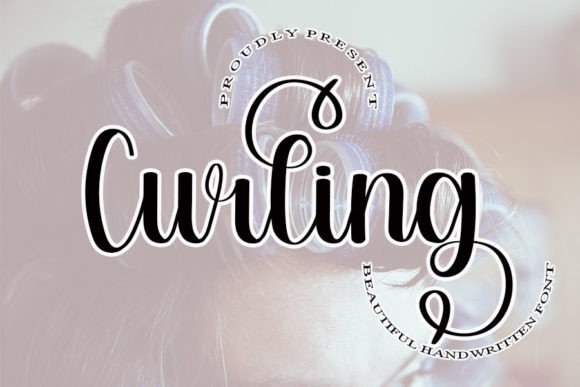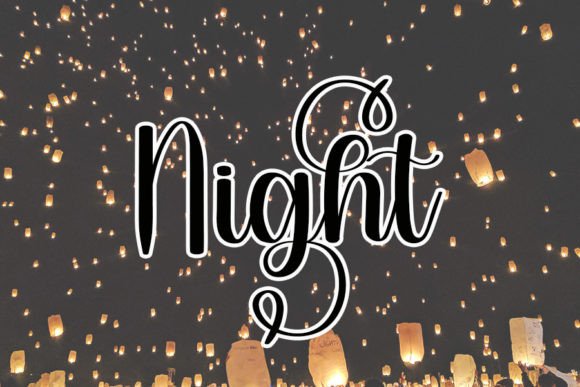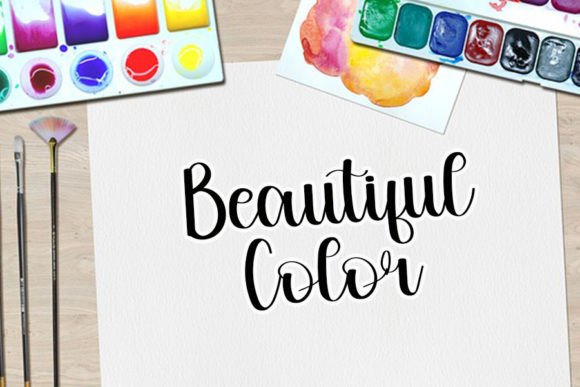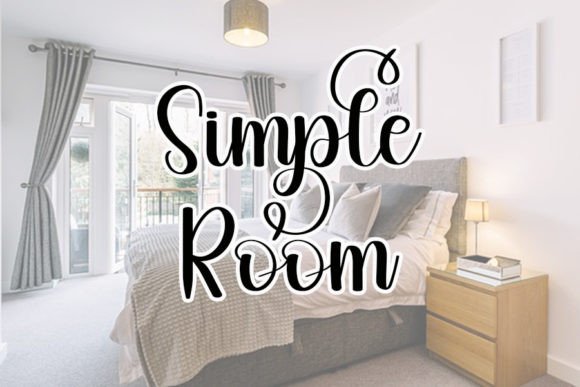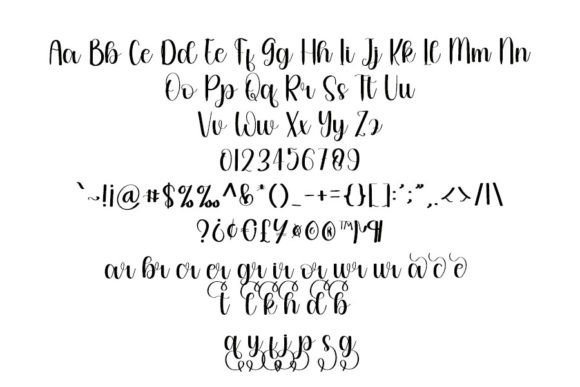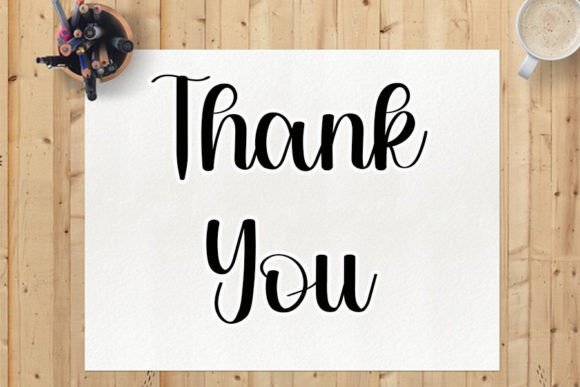
Curling Font
What Is Curling Font?
Curling Font is a neat and elegant handwritten script designed to bring timeless style and sophistication to your creative projects. Each letter features smooth curves and graceful strokes that feel refined and inviting. Because of its clean character, this font is ideal for designs that need clarity, beauty, and a personal touch.
You will see how Curling makes any project look polished and professional.
Curling is a versatile font you can apply across many creative applications. For example, it’s perfect for wedding invitations and event stationery. The elegant script creates a romantic and memorable impression.
In addition, it works beautifully for logos and branding. Whether you design for boutiques, photographers, or creative brands, Curling helps your identity feel premium and distinctive.
You can also use it for social media graphics and inspirational quotes. The flowing letters draw attention and add sophistication to every post.
When you create product packaging, labels, or gift tags, Curling adds a handcrafted, upscale look that feels unique and warm.
Moreover, it’s great for website headers, certificates, posters, and personal projects. Even minimalist layouts look more polished with this font.
Why Should You Choose Curling Font?
There are many reasons to consider Curling for your next project. First, it’s easy to read, even with its graceful flourishes. Whether you use large headlines or small captions, every letter stays clear and balanced.
Also, Curling pairs beautifully with clean serif or sans-serif fonts. This helps you build cohesive and modern layouts effortlessly.
Because it’s fully PUA encoded, you can access all glyphs, alternates, and swashes without any extra software. Customizing your text becomes smooth and fast.
Designers love that it looks polished straight out of the box, saving time while delivering premium results.
Curling Font brings elegance and authenticity to every project. For example, when you want your designs to feel refined and memorable, this font makes it easy.
Even the simplest layouts look more beautiful with Curling’s flowing handwritten style. Whether you create branding, invitations, or social content, your work will stand out instantly.
Using a premium handwritten font also shows your commitment to quality and detail. This builds trust with your audience and makes your designs more impactful.
Curling Font is more than just a typeface—it’s a creative tool that helps you share ideas with clarity and style. From logos and invitations to packaging and quotes, this font adapts easily and leaves a lasting impression.